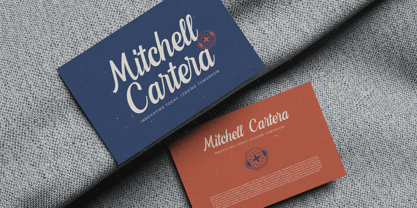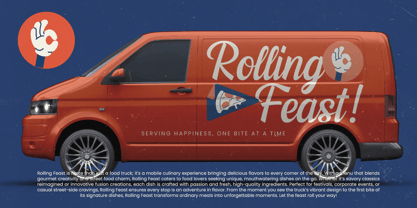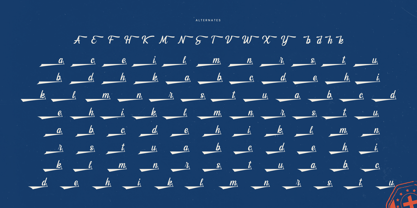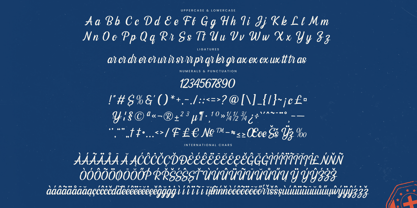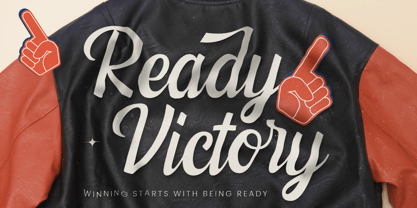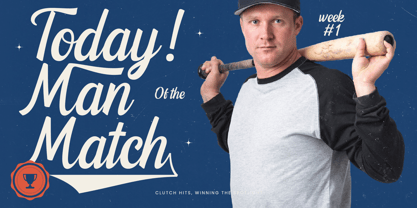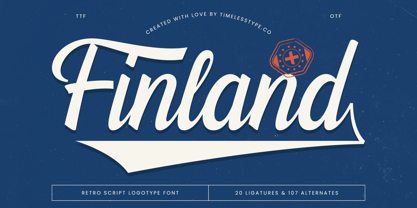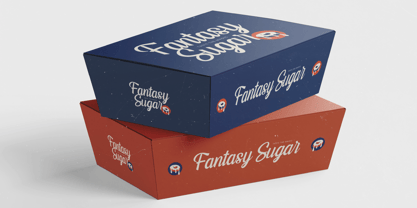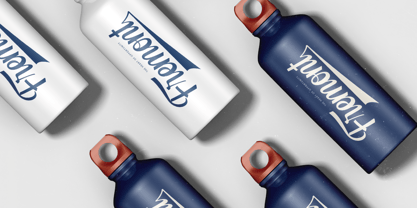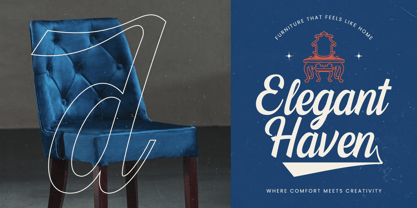
Finland
by Timelesstype Studio
The Finland Font Family was designed by Heru Utama Putra and published by Timelesstype Studio. Finland contains 2 styles and family package options.
Finland - Retro Script Logotype Font , from Timelesstype, Suitable for any projects such as: logos, branding projects, homeware designs, product packaging, mugs, quotes, posters, shopping bags, t-shirts, book covers, name card, invitation cards, greeting cards, label, photography, watermark, special events, and all your other luxury and beautiful projects that need a Luxury Serif taste.